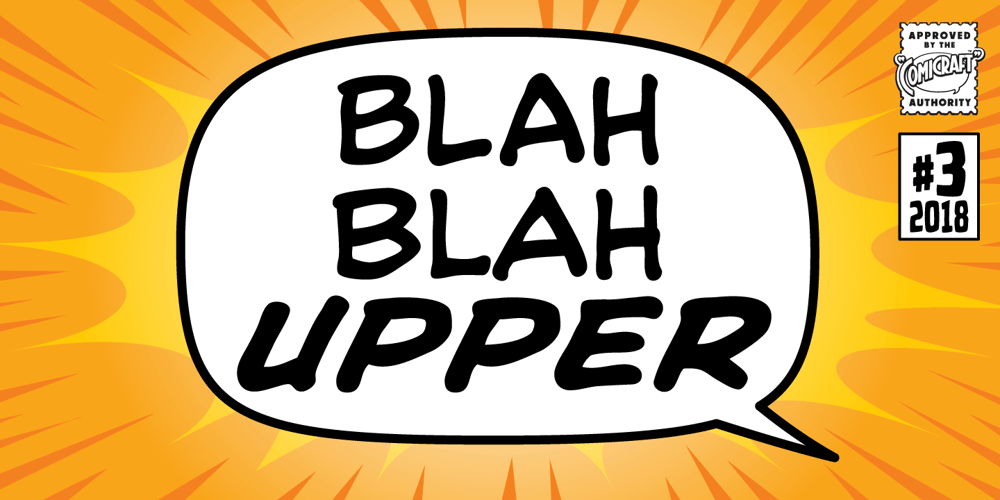
Blah Blah Upper Font Family was designed by Richard Starkings, John Roshell and published by Comicraft. Blah Blah Upper contains 4 styles and family package options. Because You Demanded It! The Collectors Item Classic BLAH BLAH BLAH makes a triumphant return as an all-uppercase comic book lettering workhorse! Complete with auto-ligatures and our groundbreaking Crossbar I Technology™.